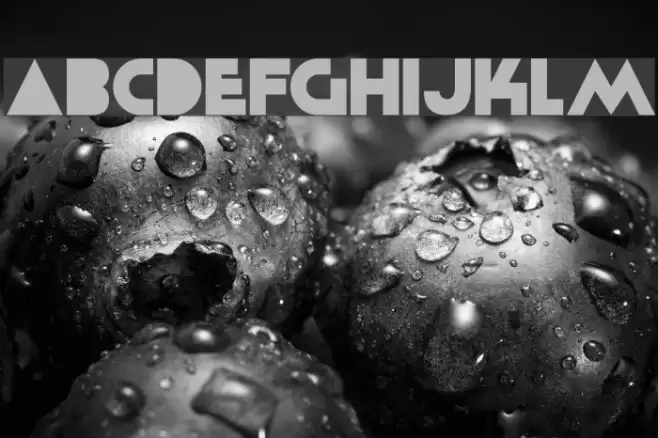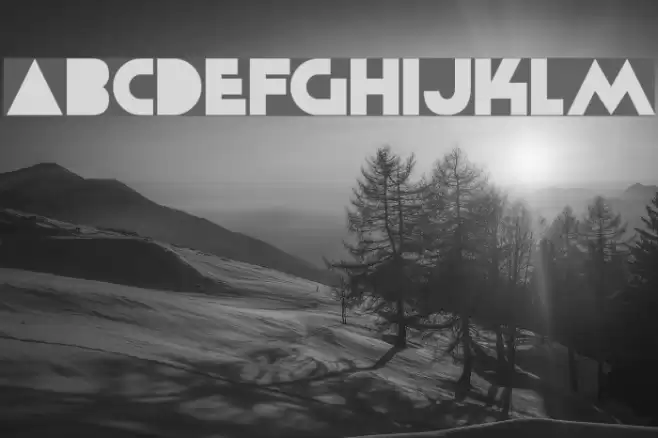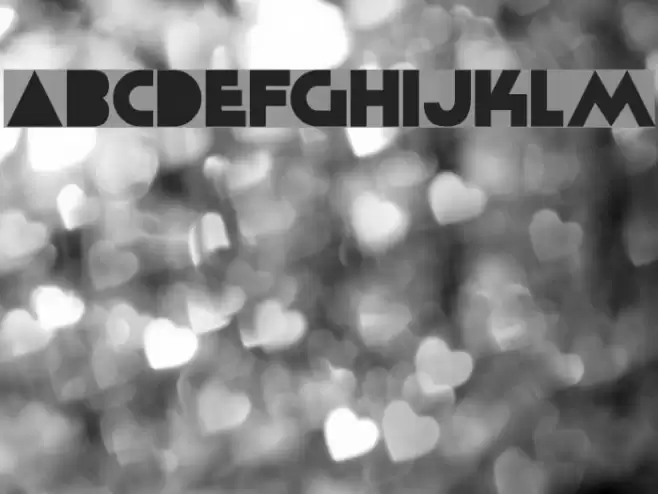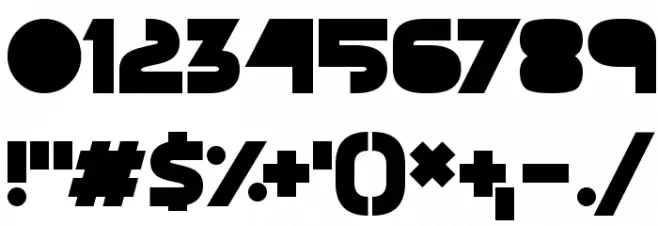
Solid Grooves Font
Solid Grooves Description
This font features bold, geometric shapes with a modern and futuristic aesthetic. The characters are constructed with sharp angles and clean lines, creating a striking visual impact. The uppercase letters have a strong presence, while the lowercase letters maintain a consistent style. Numbers and special characters are designed to complement the overall look, making them suitable for various design applications. The font's unique style is ideal for projects that require a bold statement, such as branding, posters, and headlines. The consistent weight and width across characters ensure a cohesive appearance.
A bold, geometric font with a modern and futuristic style from Uncategorized fonts.
- Proposed Projects: Ideal for branding, posters, headlines, and any design requiring a bold statement.